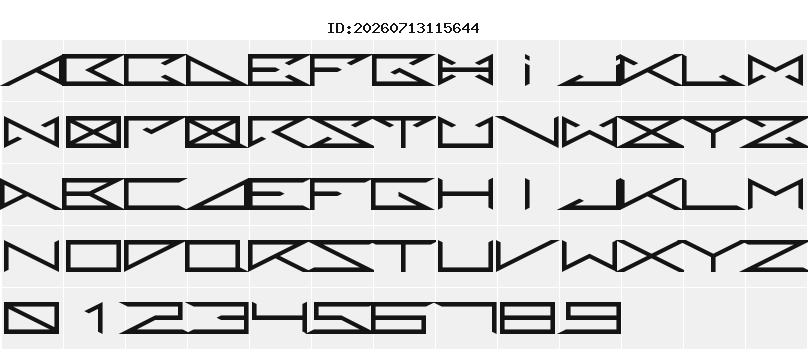
• Font Name: RANDOM_DM
• Designer: yves
• Description: “RANDOM_DM” was built with FontStruct
About RANDOM_DM.ttf
RANDOM_DM.ttf is a modern, elegant sans-serif font designed for ultimate readability and visual harmony. Perfect for branding, headlines, web design, and print materials.